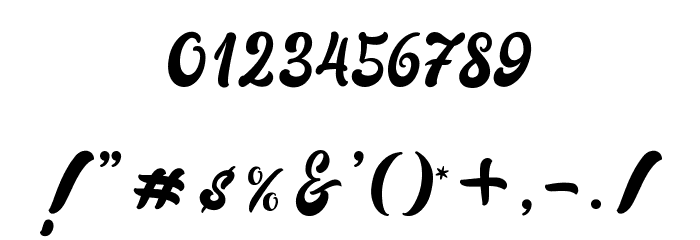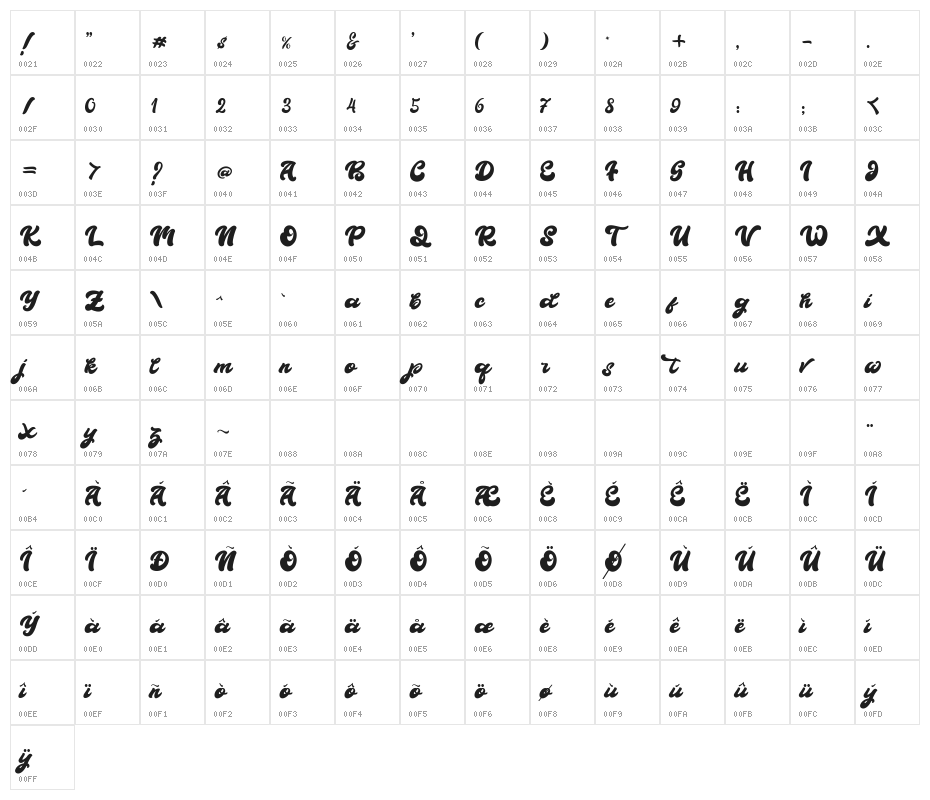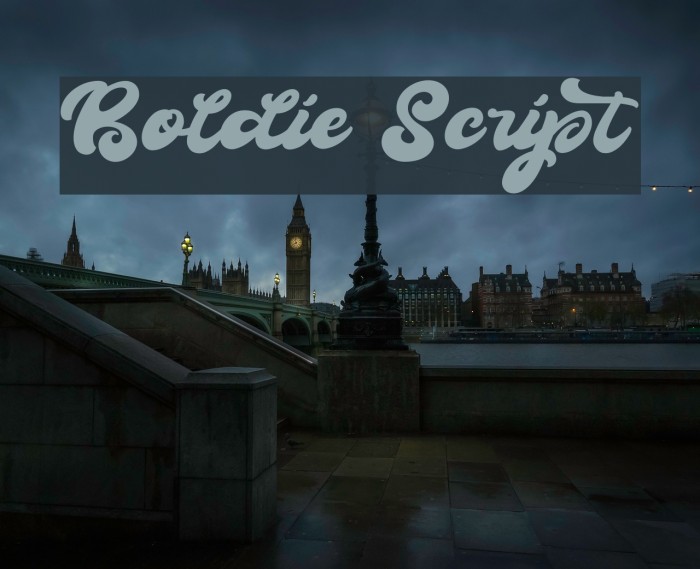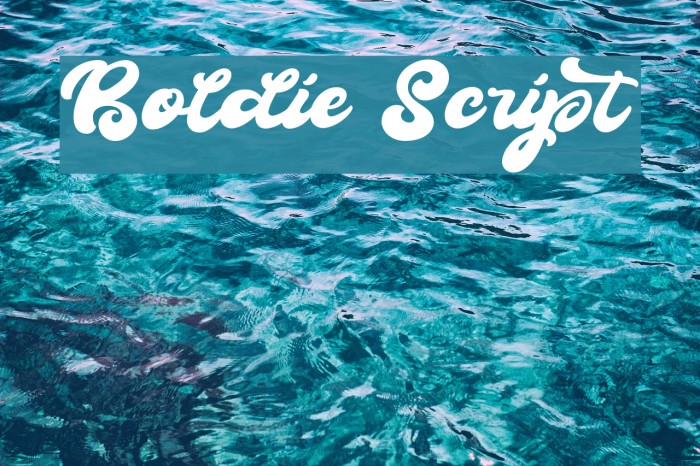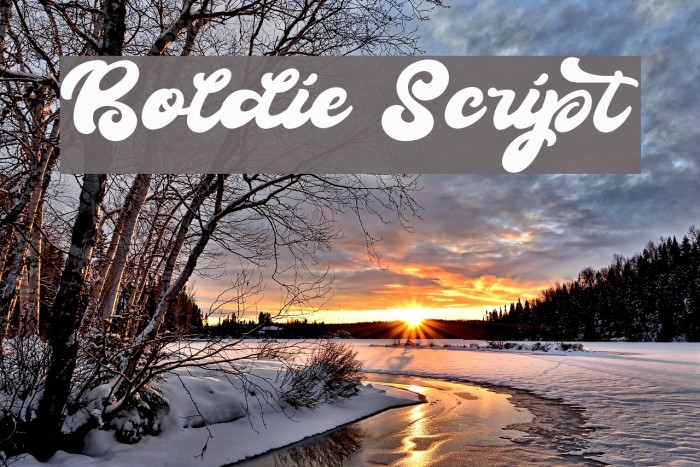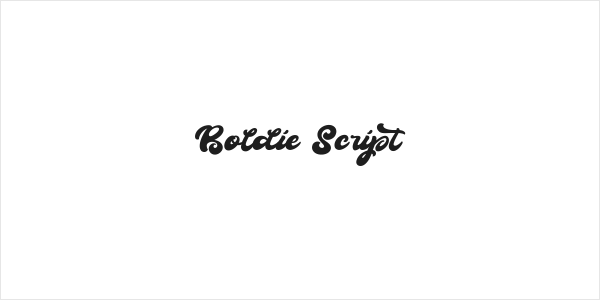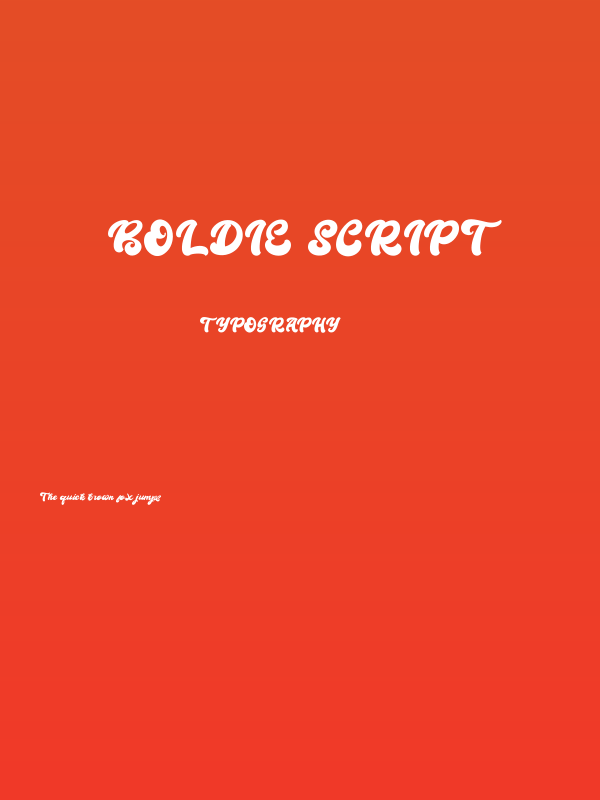
Boldie Script Font
Boldie Script Description
This script font exudes a bold and expressive character, featuring thick, flowing strokes that create a sense of movement and elegance. The uppercase letters are robust and dynamic, while the lowercase letters maintain a smooth, cursive style that enhances readability. Numbers and special characters are designed with the same boldness, ensuring consistency across all elements. The font's playful yet sophisticated appearance makes it suitable for a variety of creative applications.
| Proposed Projects | Ideal for branding, invitations, posters, and creative projects that require a touch of elegance and flair. |